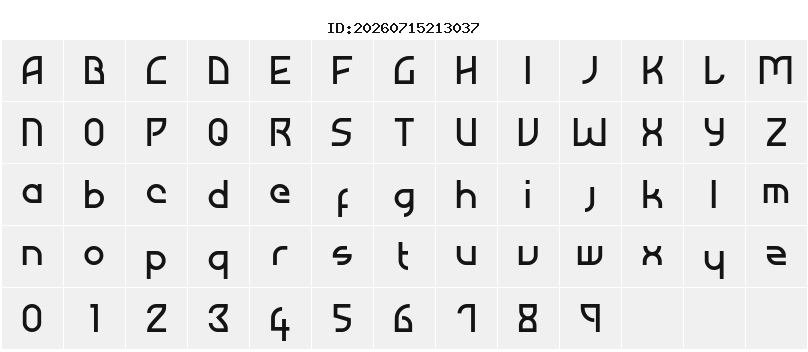
Atiba Preview
• Font Name: Atiba
• Designer: Ozan Karakoc
About Atiba.ttf
Atiba.ttf is a modern, elegant sans-serif font designed for ultimate readability and visual harmony. Perfect for branding, headlines, web design, and print materials.